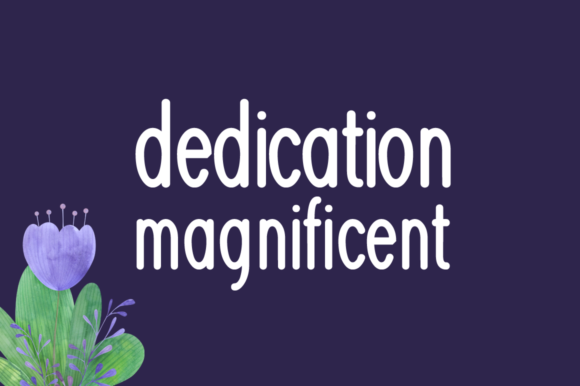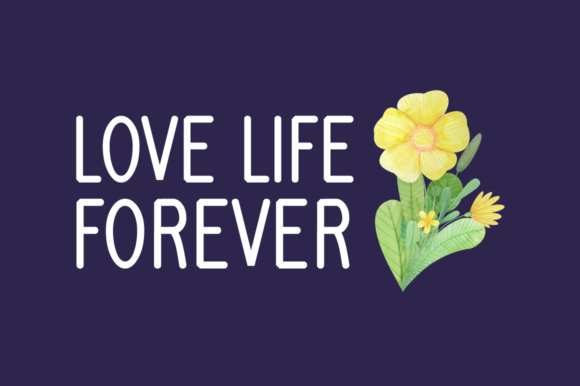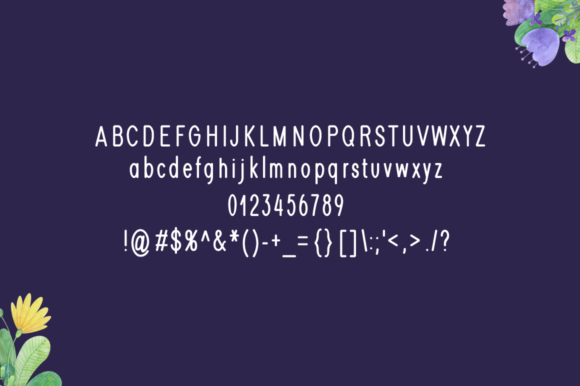
Unlock the Power of Simplicity: Discover the Beauty of Blessed Font
Have you ever found yourself stuck in a design rut, staring blankly at a blank canvas, waiting for inspiration to strike? We’ve all been there. But sometimes, all it takes is a fresh perspective to get those creative juices flowing. For designers, finding the right font can be the key to unlocking a project’s full potential.
Blessed Font is a modern sans serif display font that embodies the perfect blend of simplicity and style. With its minimalist letters, it’s the perfect choice for designers looking to add a touch of elegance to their projects. Whether you’re working on a logo, a brochure, or a website, Blessed Font is sure to bring a sense of sophistication and refinement to your design.
Blessed Font Key Features
- Unique Characteristics: Blessed Font features a distinctive, hand-drawn style with a mix of elegant and playful elements, making it perfect for creating visually appealing and eye-catching designs.
Blessed Font Review
I recently had the chance to work with Blessed Font, and overall, I have mixed feelings about it. On the one hand, there are some great features that make it stand out. ✨ The font’s versatility is one of its strongest points, with a wide range of styles and weights available. This makes it easy to find the perfect fit for any project. ✨ The font’s readability is also excellent, even at smaller font sizes. This is a must-have for any font, and Blessed Font delivers.
Another advantage of Blessed Font is its scalability. ✨ Whether you’re working on a small website or a large-scale application, this font is sure to perform well. It’s also highly customizable, with options to adjust the font size, color, and even the line height. This level of control is essential for designers who want to create a unique look and feel.
While Blessed Font has its strengths, it also has some limitations. ⚠️ One of the biggest drawbacks is the lack of support for certain languages. ⚠️ This can be a major issue for designers who work on projects that require multilingual support. Additionally, the font’s licensing terms can be a bit confusing, which may lead to unexpected costs or restrictions.
In conclusion, Blessed Font is a solid choice for designers who need a versatile and readable font. While it has its limitations, the benefits far outweigh the drawbacks. With a little creativity and planning, you can work around the font’s limitations and create stunning designs that showcase your skills.